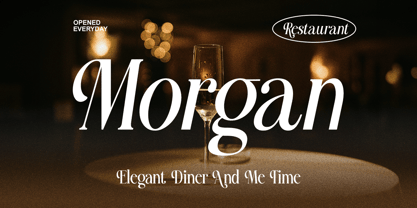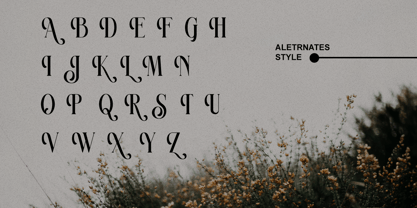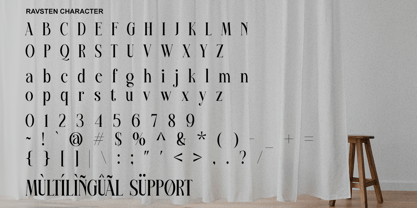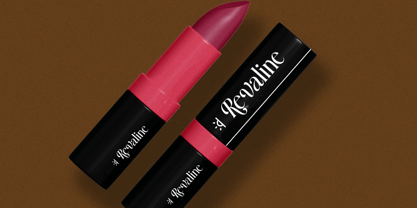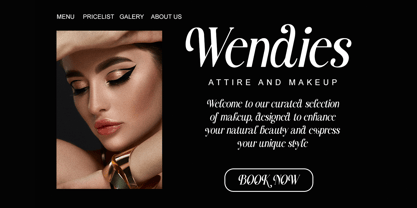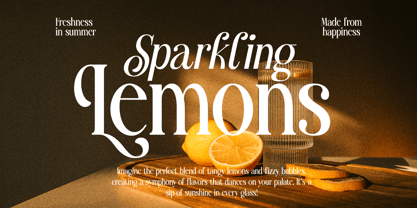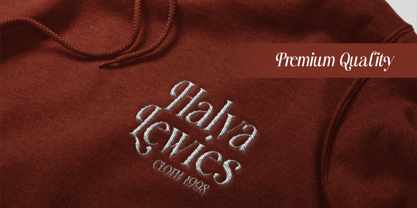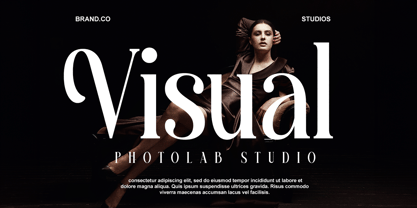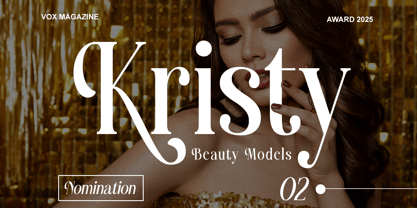
Ravsten
Ravsten is a elegant condensed serif font with italic style, exuding a vintage charm and nostalgic feel that makes it perfect for a wide array of design applications. This unique blend of styles infuses every design with an added touch of sophistication. Ideal for branding initiatives, editorial designs, and social media content, Ravsten offers versatilityfor any design. The Petite style presents a mix of calligraphic uppercase and serif lowercase, lending diverse aesthetic options to your design toolkit.
- Stylistic Alternates
- Multi Language Support